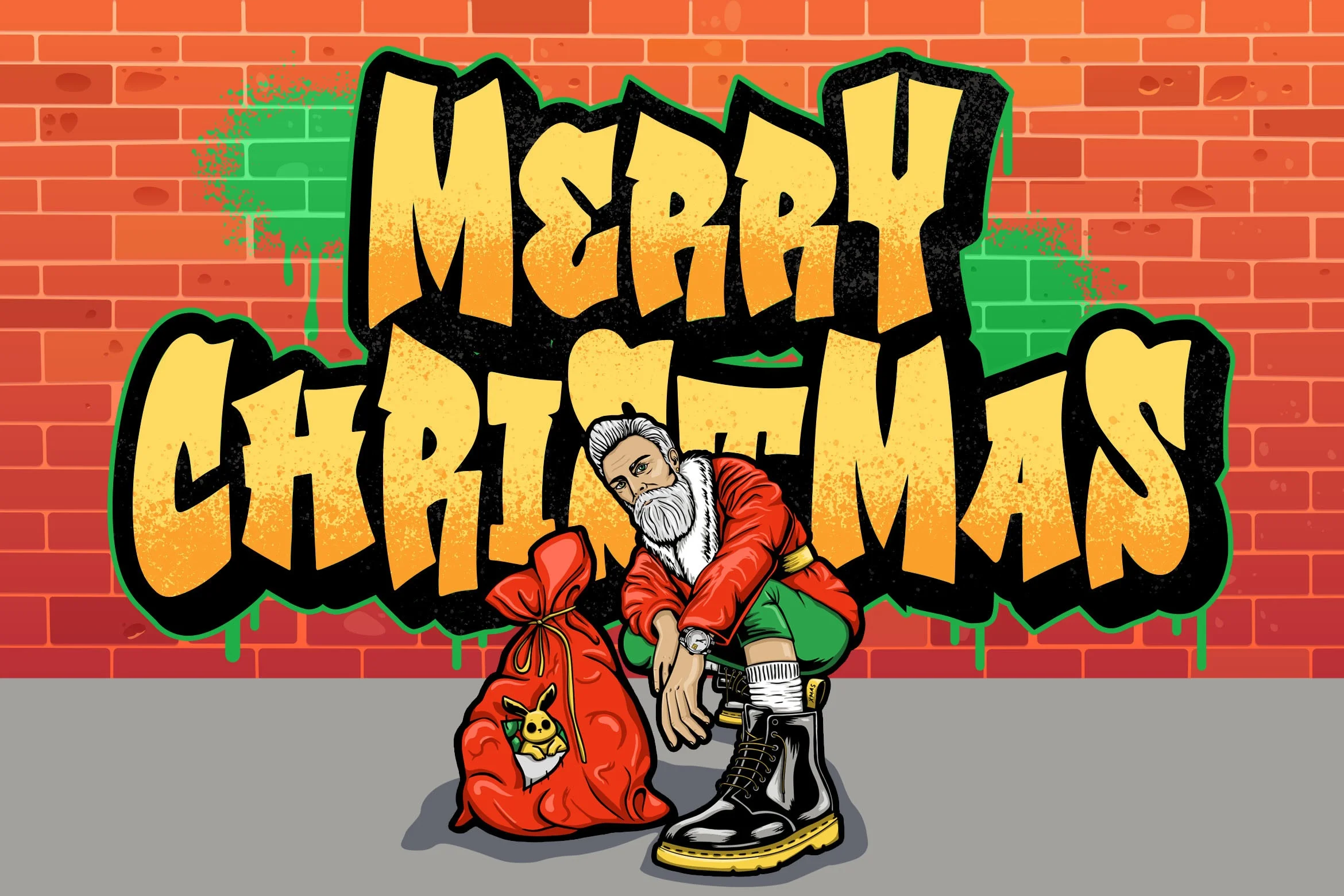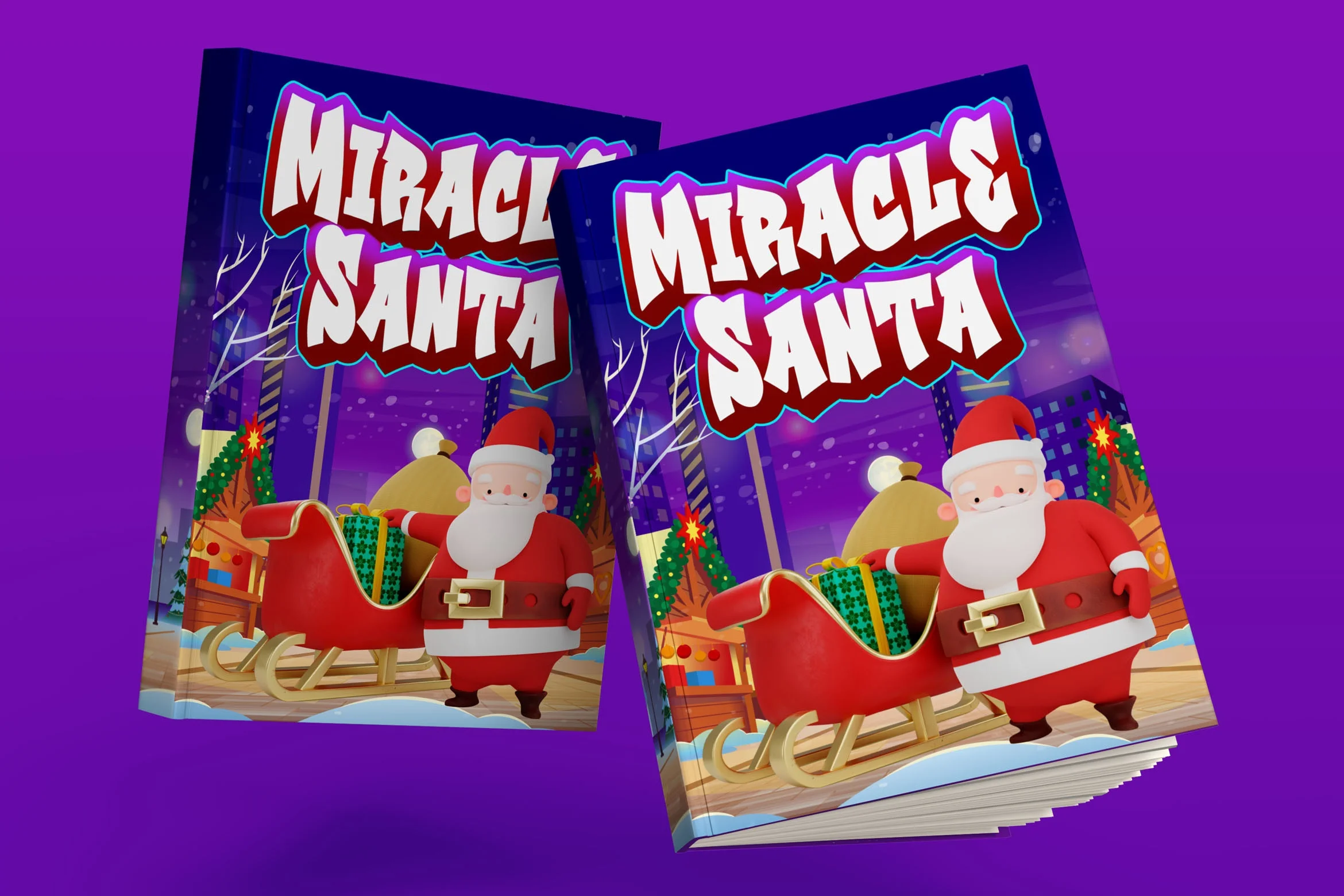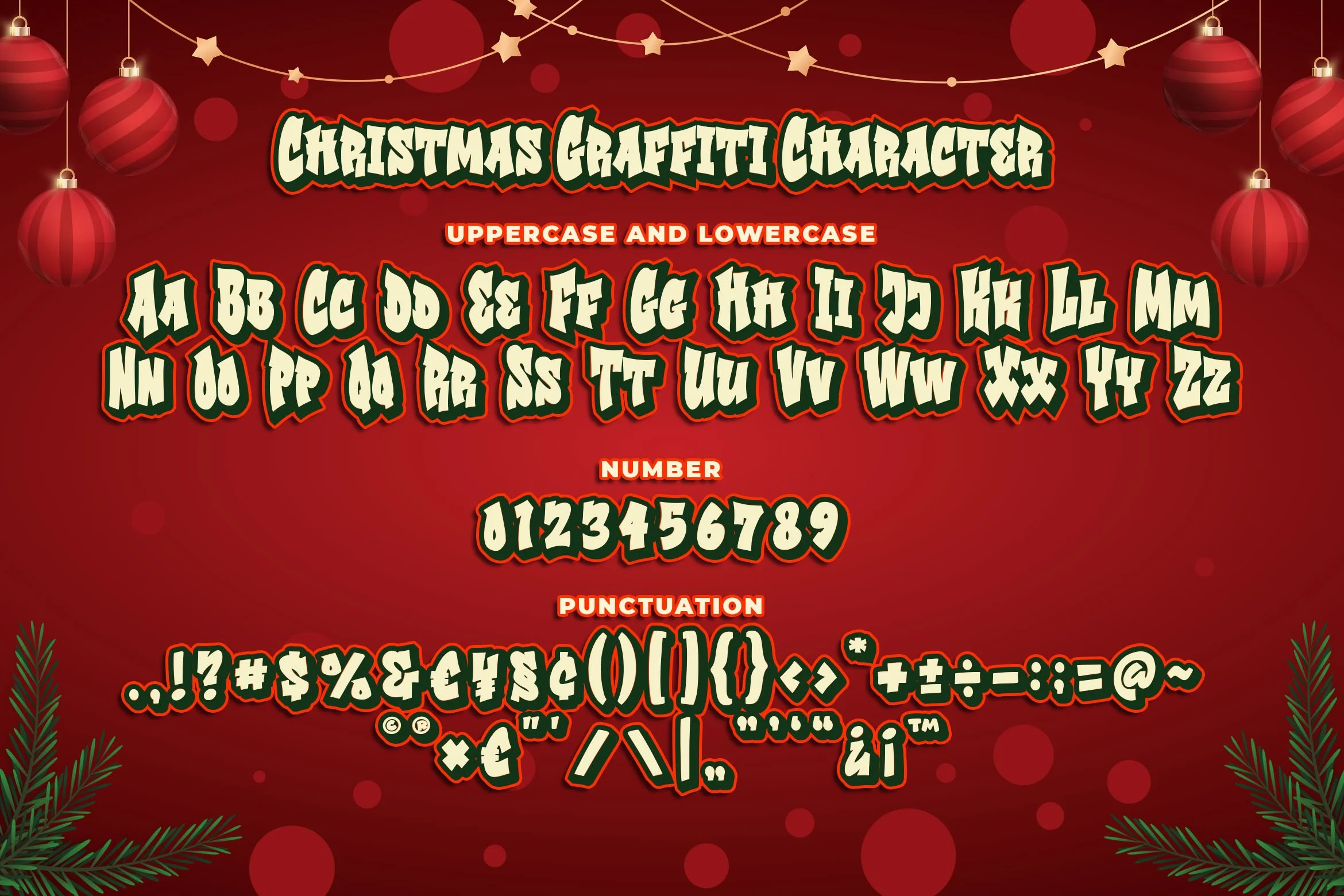
Christmas Graffiti Font
This urban font is perfect for street art Christmas displays, hip-hop holiday events, urban Christmas celebrations, graffiti-style Christmas decorations, contemporary holiday branding, edgy Christmas advertisements, modern street Christmas art, urban holiday fashion, alternative Christmas parties, and bold seasonal messaging materials.
Christmas Graffiti Font is exciting because it brings the raw energy and authentic street culture of graffiti art to Christmas celebrations through its boldly crafted letterforms that capture the rebellious creativity and urban spirit of contemporary holiday expression. The font features dynamic, spray-painted characters with street-inspired edges and graffiti details that reflect the way modern urban communities celebrate Christmas with their own distinctive style and creative flair, incorporating tag-like flourishes and street art elements that create typography as vibrant and authentic as colorful murals adorning city walls during the holiday season. Each letter showcases the confident boldness and artistic rebellion that makes graffiti such a powerful form of self-expression, with urban curves and street-smart accents that transform traditional Christmas messaging into contemporary statements of holiday joy expressed through the lens of street culture and artistic authenticity.
The Christmas Graffiti Font family includes street-inspired variations: Regular, Bold, Light, Tagged, and Spray versions. The collection features special urban elements including spray paint effects, tag flourishes, street art accents, and graffiti ornaments. Additional components include urban borders, street frames, graffiti decorations, and bold ornamental designs that enhance the font's Christmas graffiti appeal and create cohesive street art holiday themes.
Urban artists and contemporary celebrants will find Christmas Graffiti Font to be an exceptional tool for creating authentic street-style holiday communications that celebrate Christmas through the lens of urban creativity and contemporary artistic expression. This boldly crafted font transforms ordinary Christmas messaging into street art expressions that resonate with urban audiences who celebrate the holidays with their own unique style and creative energy.
The typeface includes comprehensive character support with street art styling that maintains excellent readability while conveying the bold creativity and urban authenticity of graffiti Christmas celebrations. The font's edgy design ensures striking results across both digital street art applications and contemporary urban holiday projects.
Perfect for urban brands, street artists, contemporary Christmas events, and edgy holiday marketing, this font delivers powerful visual impact that communicates creativity, authenticity, and the bold urban spirit of celebrating Christmas through the vibrant lens of street art culture and contemporary creative expression.